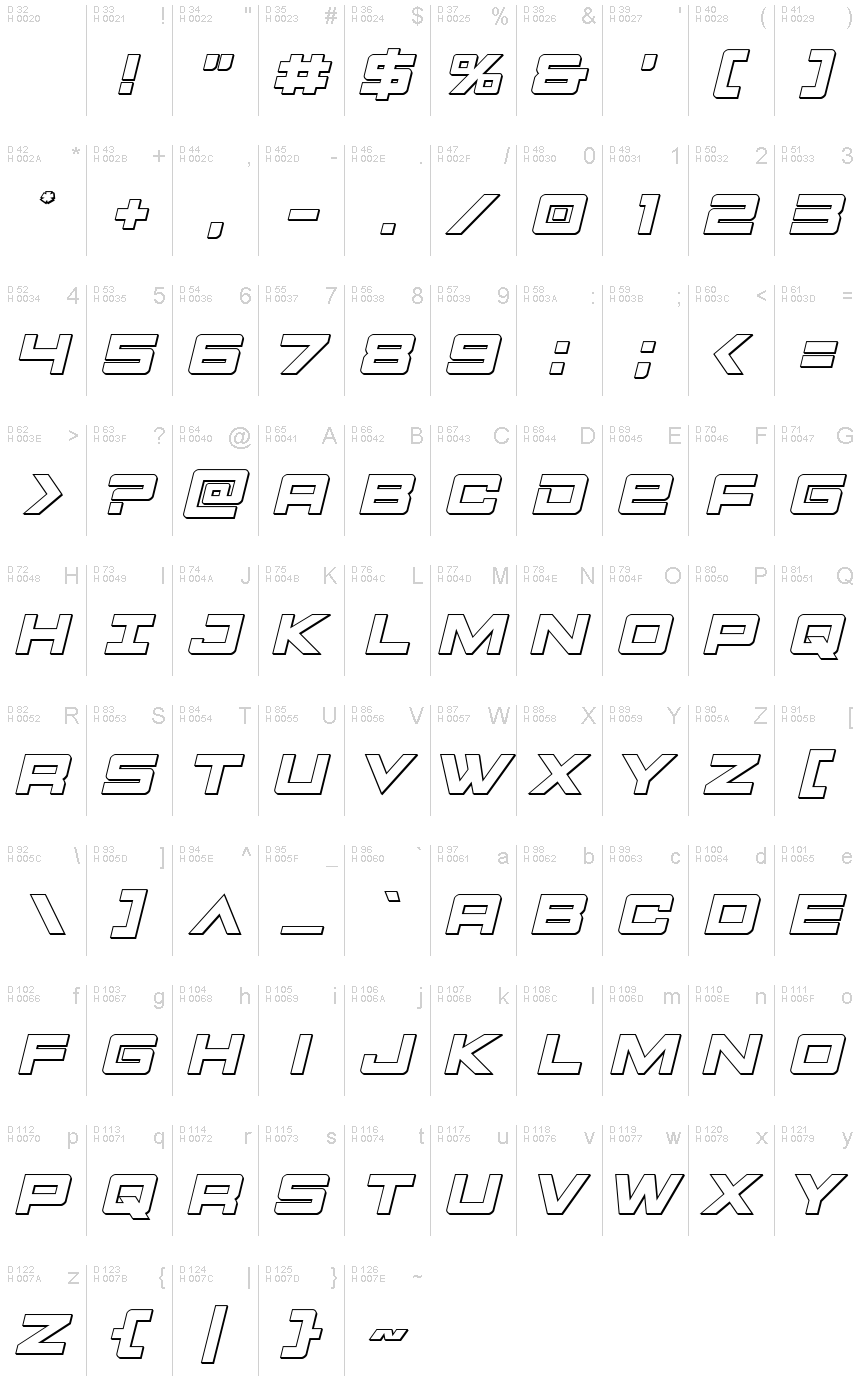
Montroc 3D Italic
Montroc 3D Italic is a bold, expansive display font that exudes a distinctive techno-inspired aesthetic. Crafted by designer Daniel Zadorozny, this font boasts a striking 3D effect, lending it a dynamic, futuristic appeal.
The exaggerated letterforms and expanded width create a powerful, eye-catching presence, making Montroc 3D Italic an ideal choice for headlines, logos, and other high-impact design elements. Its versatility shines across a range of applications, from sleek, modern branding to attention-grabbing event posters and promotional materials.
This font's unique character and uncompromising style make it a compelling option for designers seeking to infuse their work with a bold, technologically-driven flair.